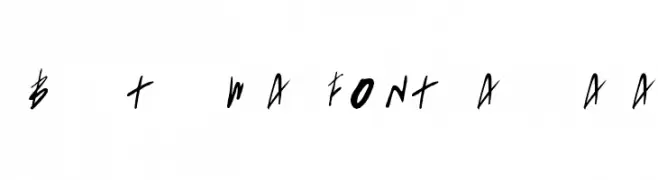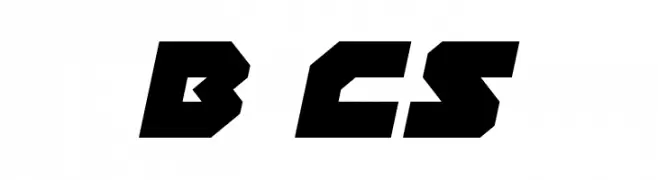
A futuristic, geometric font with sharp angles and bold lines.
A futuristic, angular font with a bold, geometric design.
A bold, angular font with a futuristic and high-tech style.
A bold, outlined font with a playful and dynamic style.
A whimsical font blending serif and script styles with playful curves.
A bold, geometric font with a futuristic and abstract design.
A bold, angular font with sharp, dynamic edges for a striking visual impact.
A modern, geometric font with bold, clean lines and uniform thickness.
A bold, brush-style font with a dynamic and energetic appearance.
Hand-drawn dingbat font with playful, hobby-themed icons.
A bold, slanted font with sharp, angular cuts and a modern aesthetic.
A hand-drawn, expressive font with elongated, irregular strokes.
A bold, 3D block font with a modern, geometric style and shadow effect.
A bold, playful font with a hand-drawn, graffiti-like style.
A bold, dynamic handwritten font with expressive strokes and a fluid style.
A clean, monospaced font ideal for coding and technical documents.
A modern, monospaced font with excellent readability and uniform spacing.
A clean, modern monospaced typeface ideal for coding and technical documentation.
A bold, monospaced typeface with a clean and modern design.
A bold, italic, monospaced font with medium contrast and modern style.
A modern, monospaced italic font with medium contrast and clean lines.
A playful and decorative font with whimsical loops and curls.
A bold, jagged, and artistic font with a dynamic and chaotic style.
A bold, textured font with a wild, tiger-stripe appearance.
A playful, quirky handwritten font with irregular lines and a doodle-like appearance.